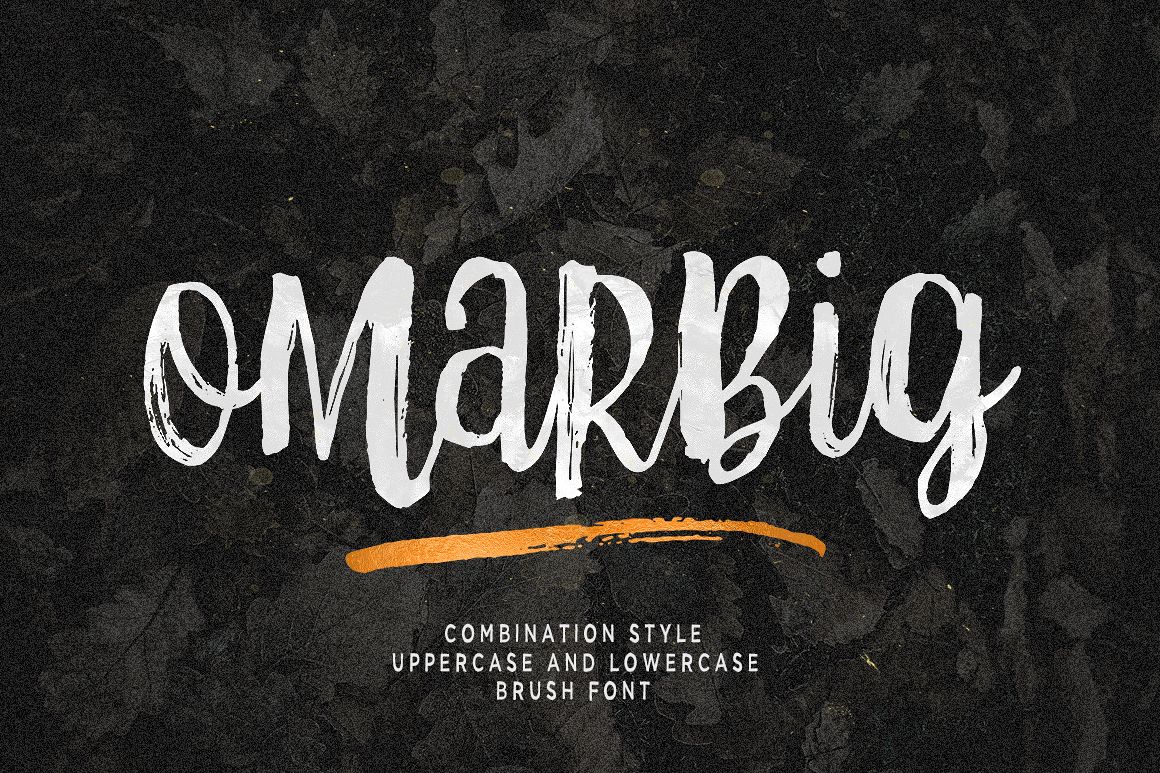
Omarbig
Omarbig Underlines
Omarbig
Omarbig is a beautiful handpainted font , organic, fun, with a mixture of lowercase and capital letters is very interesting and unique.